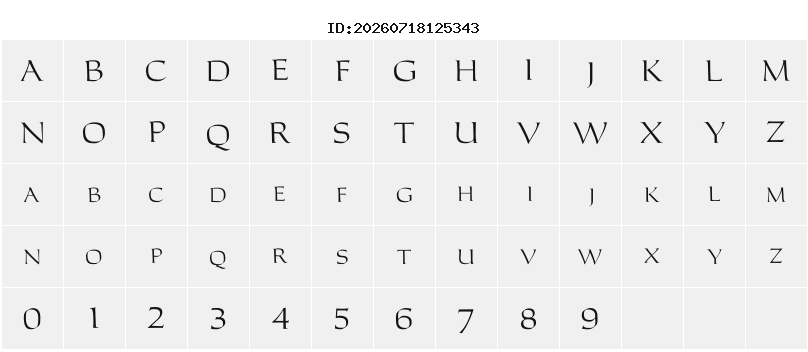
About CarolusRomanFont.ttf
CarolusRomanFont.ttf is a modern, elegant sans-serif font designed for ultimate readability and visual harmony. Perfect for branding, headlines, web design, and print materials.